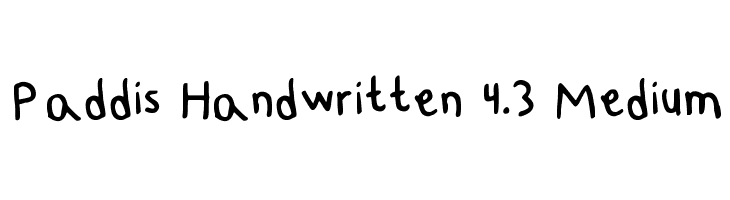
A bold, geometric font with clean lines and a modern, approachable style.
A bold, futuristic font with geometric, angular shapes.
A playful, casual handwritten font with uneven strokes and a friendly appearance.
A modern, geometric font with clean lines and a minimalist aesthetic.
A dot matrix style font with a modern, digital aesthetic.
A whimsical, artistic font with fluid, curvy lines and playful forms.
An elegant, flowing script font with ornate uppercase and smooth lowercase letters.
A decorative knotwork font with bold, intertwining lines and geometric shapes.
A modern, geometric font with clean lines and a sleek, sophisticated appearance.